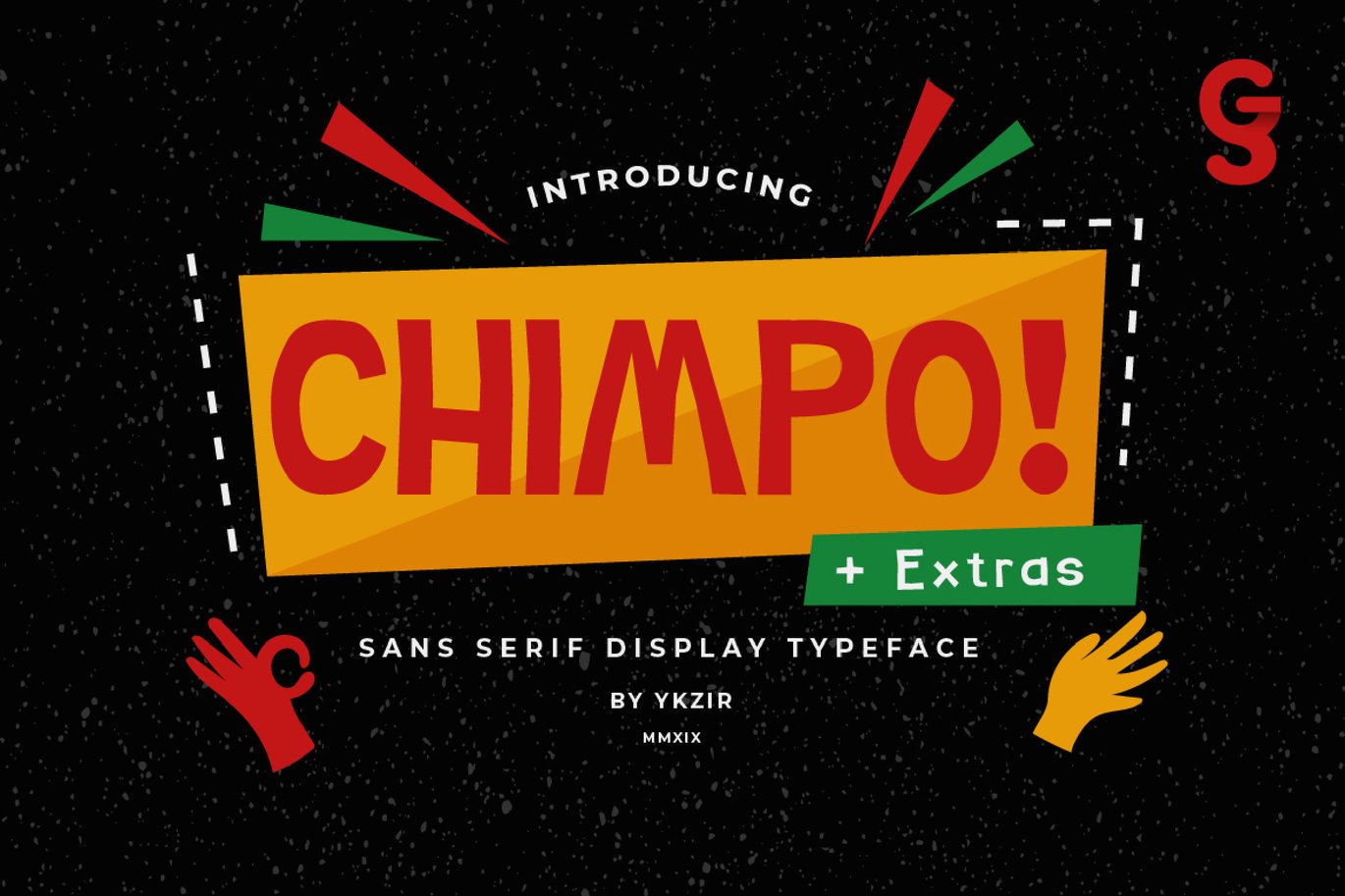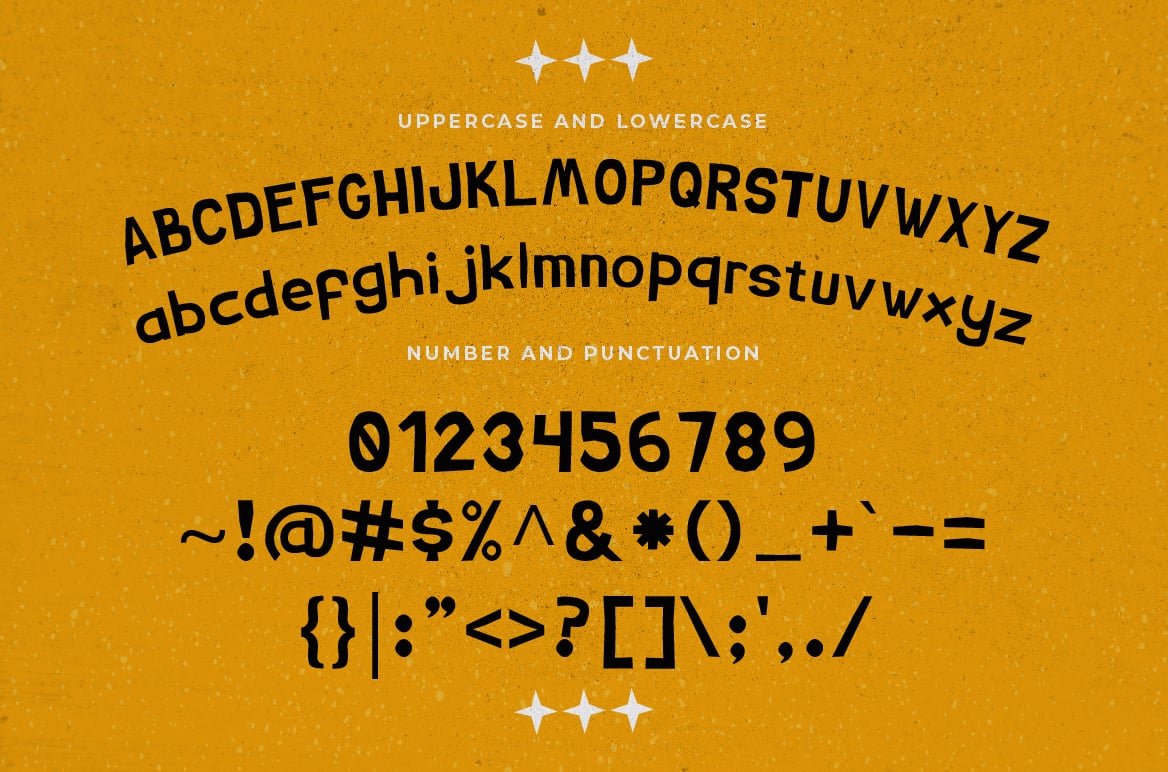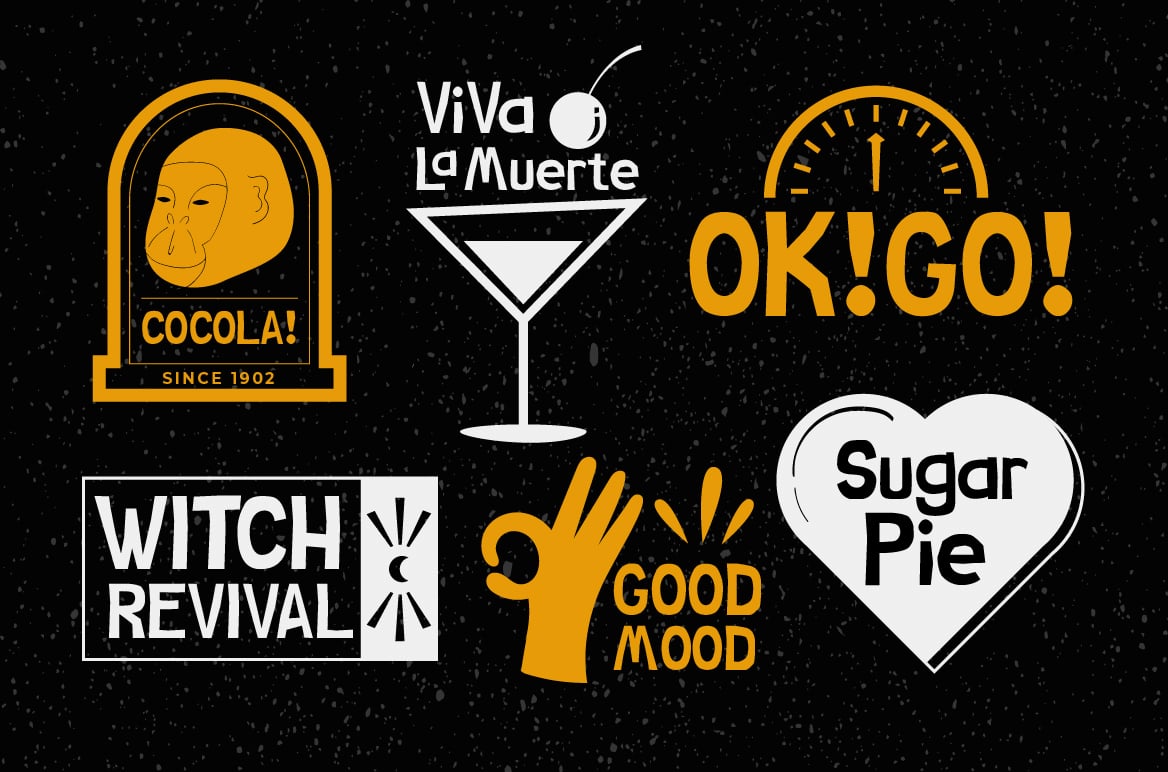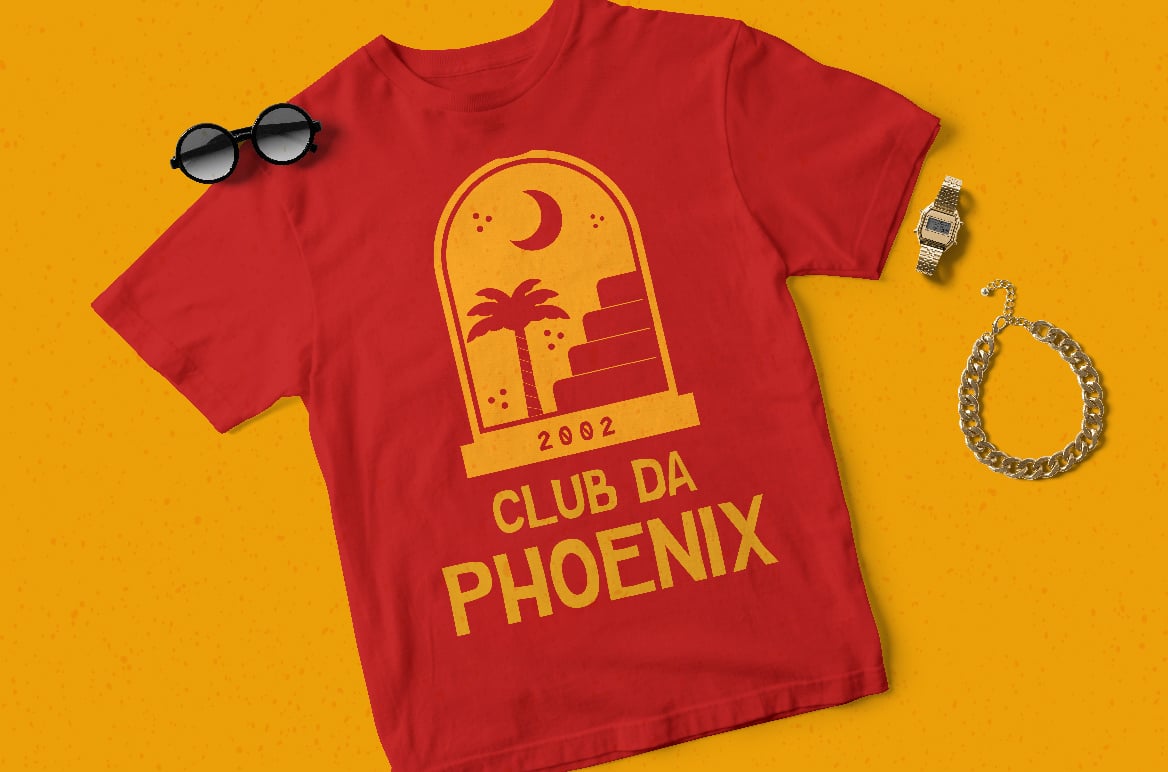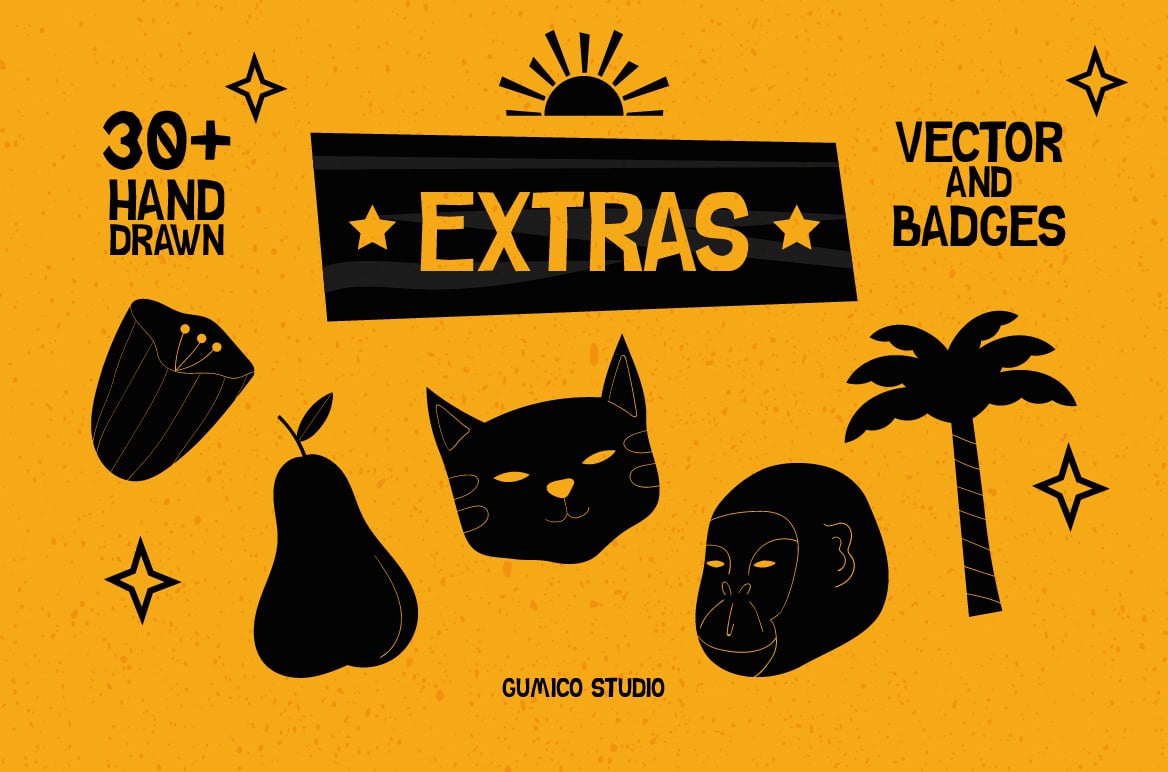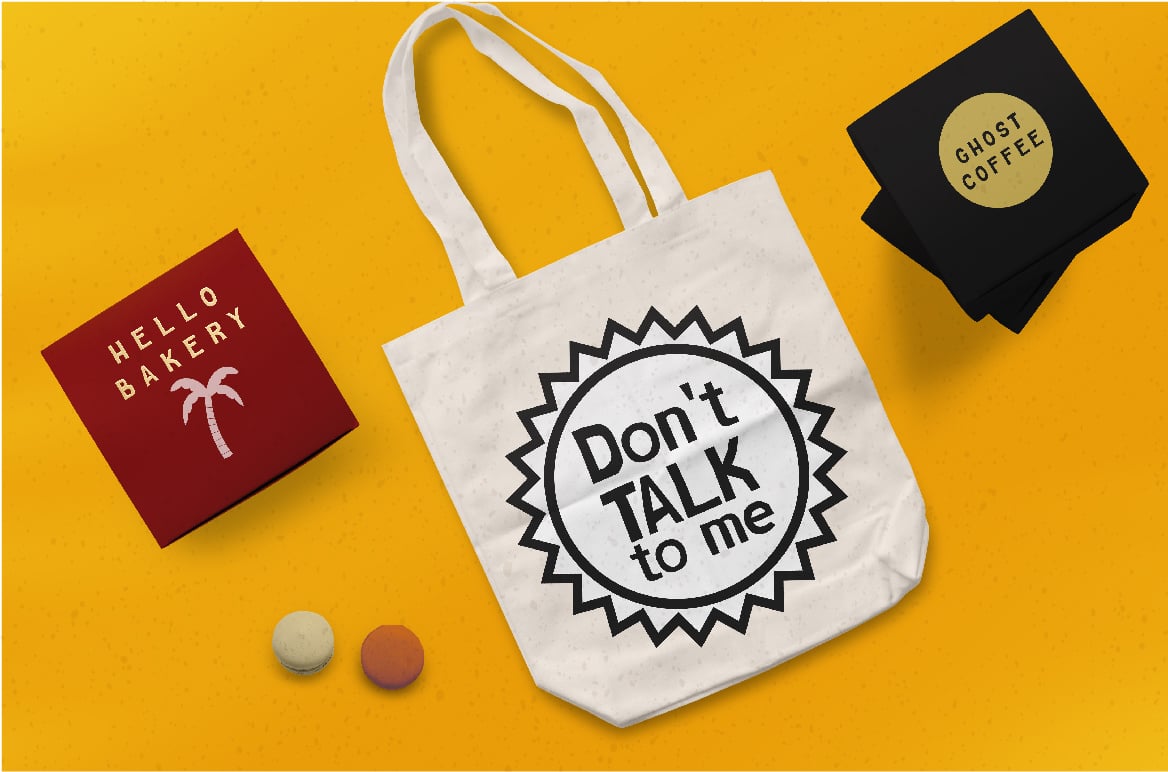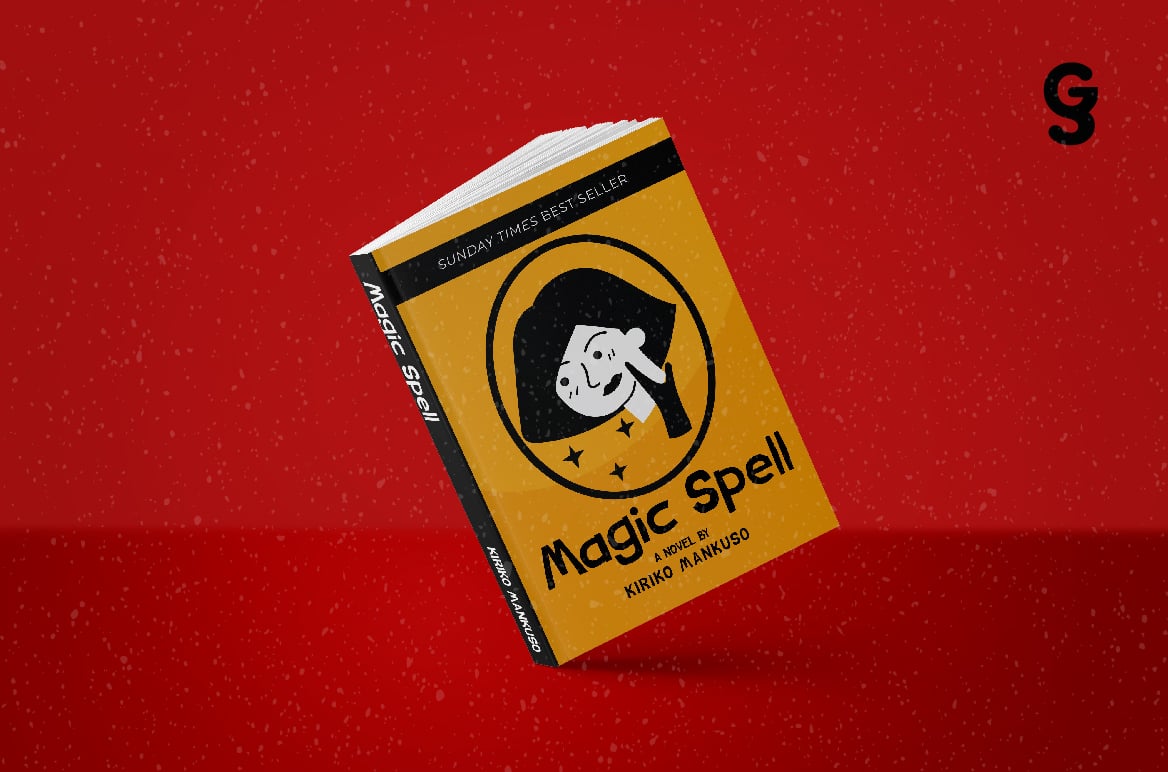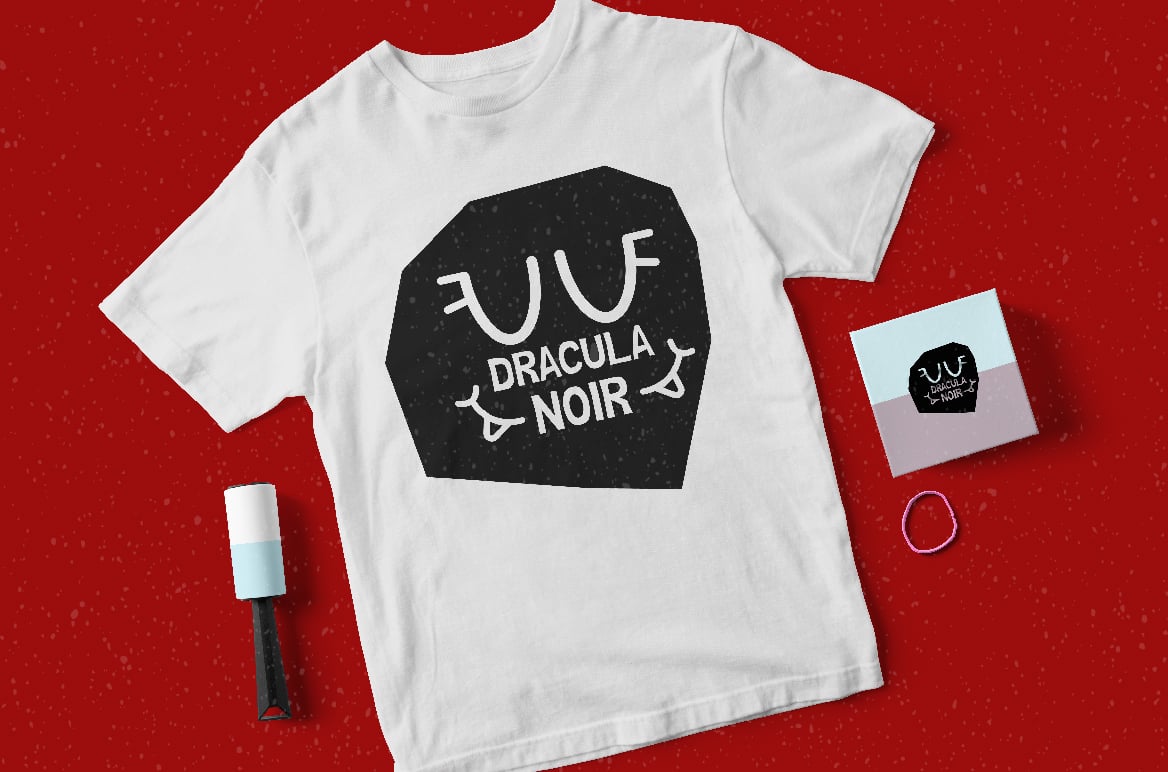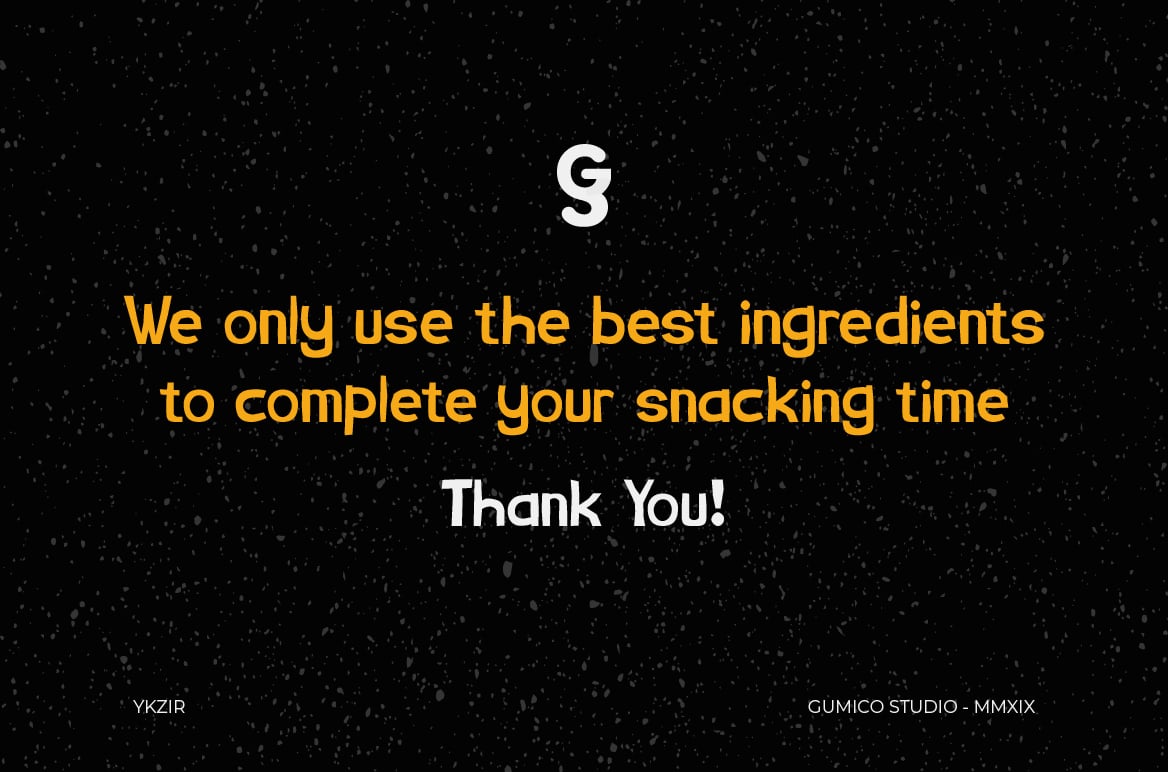
Chimpo Typeface
Chimpo Typeface is a fun typeface inspired by paper-cutting and vintage poster. It has a bit festive vibes but still looks simple. You can use bonuses inside to create many possibility fancy design. Made to fit some seasonal event like Horror, Mexican, Retro, even Birthday party.
Chimpo Typeface 100% perfect for headings, logo type, quotes, apparel design, invitations, flyer, poster, greeting cards, product packaging, book cover, printed quotes, cover album, movie, or any design requirements that you need.
Chimpo Features :
- Numerals & Punctuations
- Badges & Vector Illustration